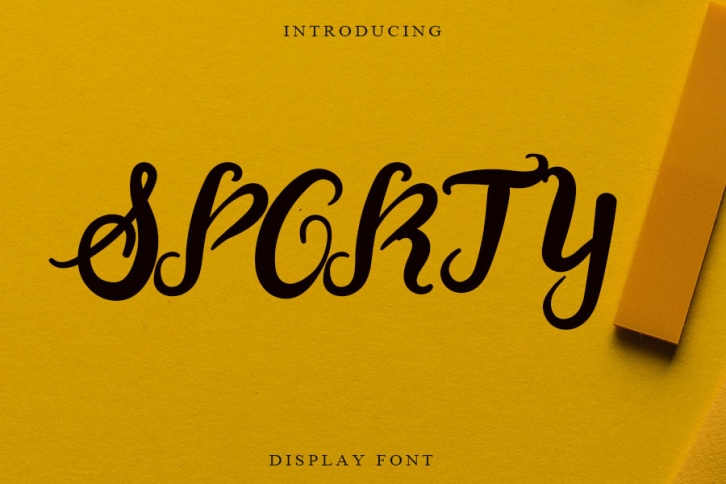
Sporty is a gorgeous and trendy looking handwritten font carefully created with a touch of elegance. Whether you’re looking for fonts for Instagram or calligraphy scripts for DIY projects, this font will turn any creative idea into a true piece of art!